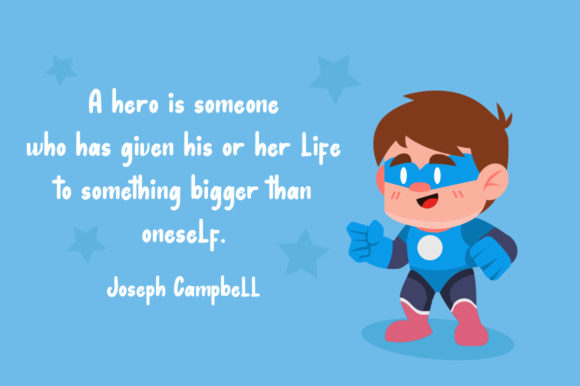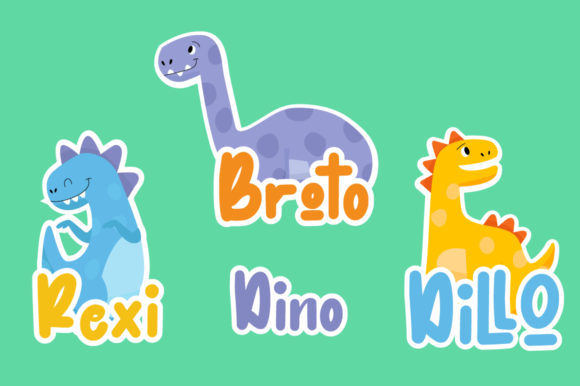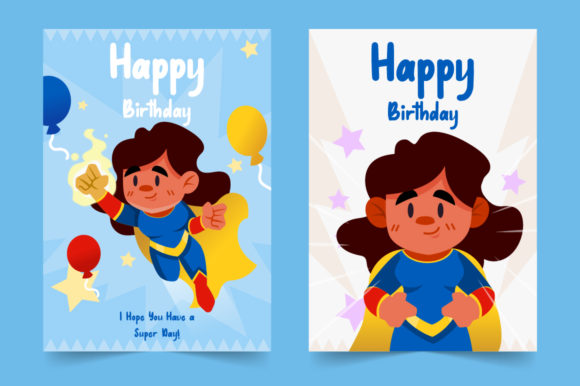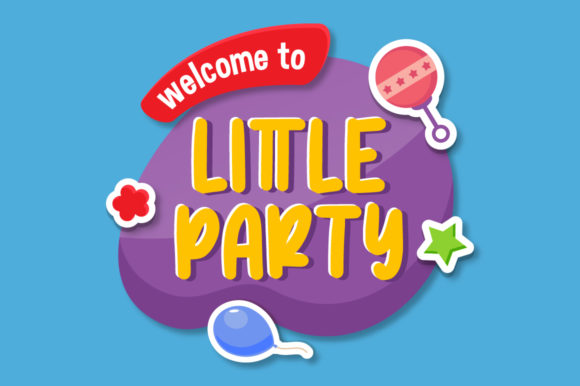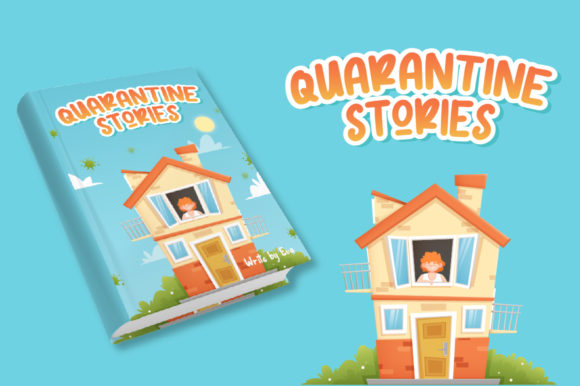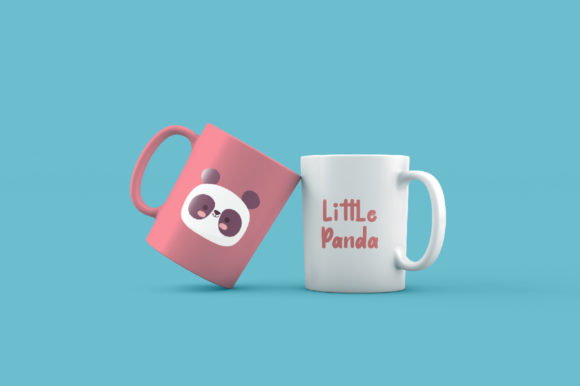
Hello Catty Font: Add a Joyful Touch to Your Designs
Are you tired of using the same old fonts in your designs? Do you want to add a playful and quirky touch to your creative projects? Look no further than Hello Catty Font! This adorable display font is sure to bring a smile to your face and make your designs stand out from the crowd.
What is Hello Catty Font?
Hello Catty Font is a cute and quirky display font that is perfect for adding a joyful touch to your designs. With its playful and whimsical style, this font is sure to capture the attention of your audience and leave a lasting impression. Whether you’re a designer, crafter, or DIY enthusiast, Hello Catty Font is a must-have addition to your font collection.
Features of Hello Catty Font
Hello Catty Font has several features that make it a standout font for your designs. Some of its key features include:
- Cute and Quirky Style: Hello Catty Font has a playful and whimsical style that is sure to add a touch of fun to your designs.
- Display Font: This font is specifically designed as a display font, making it perfect for headlines, titles, and other attention-grabbing elements in your designs.
- Easy to Read: Despite its playful style, Hello Catty Font is easy to read and understand, making it perfect for use in a variety of design projects.
- Versatile: Hello Catty Font can be used in a wide range of design projects, from crafting and DIY projects to digital designs and marketing materials.
How to Use Hello Catty Font
Using Hello Catty Font in your designs is easy! Here are a few tips to get you started:
- Pair it with Other Fonts: Hello Catty Font pairs well with a variety of other fonts, making it easy to create visually appealing combinations.
- Use it for Headlines and Titles: This font is perfect for use in headlines and titles, where its playful style can really shine.
- Add it to Your Crafting Projects: Hello Catty Font is a great addition to any crafting project, from scrapbooking to card making.
- Experiment with Different Colors: This font looks great in a variety of colors, so don’t be afraid to experiment and find the perfect hue for your design.
Benefits of Using Hello Catty Font
There are many benefits to using Hello Catty Font in your designs. Some of the top benefits include:
- Adds a Playful Touch: This font adds a playful and whimsical touch to your designs, making them more engaging and fun.
- Stand Out from the Crowd: Hello Catty Font is a unique and eye-catching font that will help your designs stand out from the crowd.
- Perfect for Crafting and DIY Projects: This font is a great addition to any crafting or DIY project, adding a personal and playful touch.
- Easy to Use: Hello Catty Font is easy to use and can be incorporated into a wide range of design projects.
Hello Catty Font is a cute and quirky display font that is perfect for adding a joyful touch to your designs. With its playful style and versatility, this font is sure to become a favorite in your font collection. Whether you’re a designer, crafter, or DIY enthusiast, Hello Catty Font is a must-have font that will help your designs stand out from the crowd.